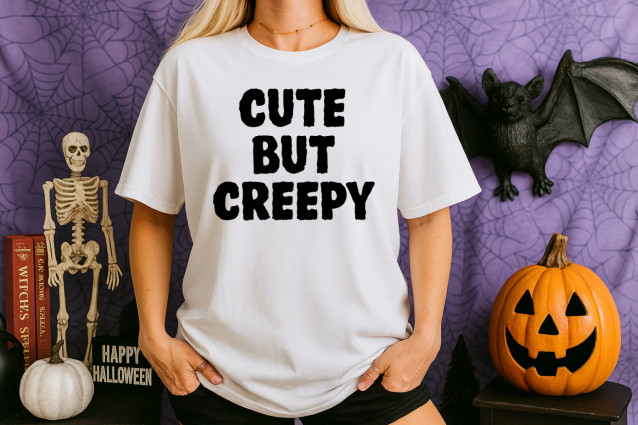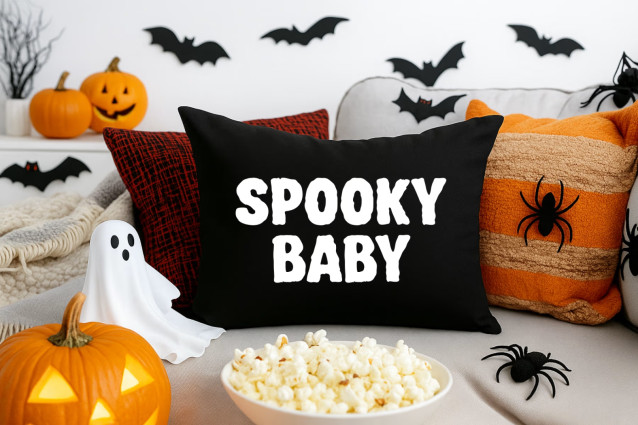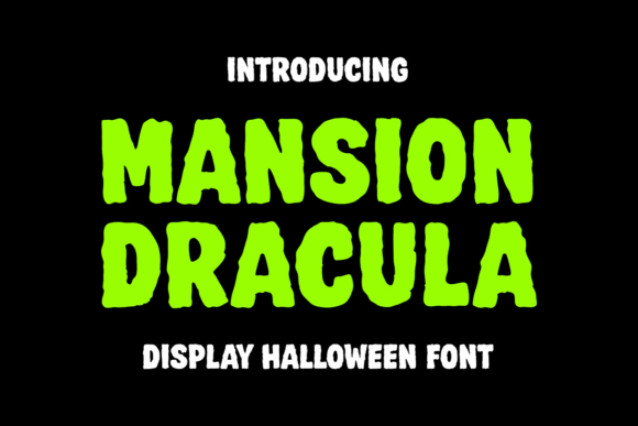
Mansion Dracula Font
Dive into the mystic aura of Mansion Dracula, an impressive display font imbued with Halloween vibes. This multifaceted typeface, wreathed in spine-chilling allure, makes a thrilling pick for your spook-inspired design endeavours. Meticulously crafted, Mansion Dracula projects an unshakeable silhouette, ideal for conjuring mesmerising invitations, captivating social media content, or supernatural artwork. Be forewarned, once Mansion Dracula whispers into your designs, they etch an indelible mark on the observer’s mind!